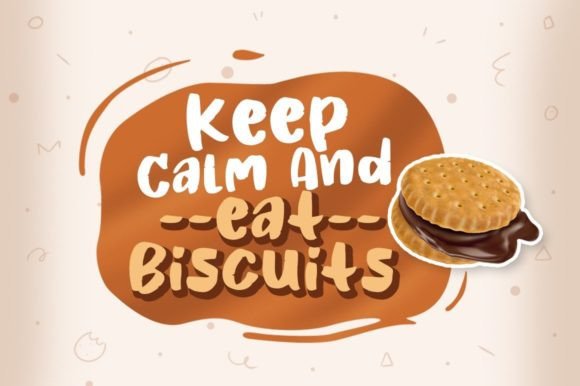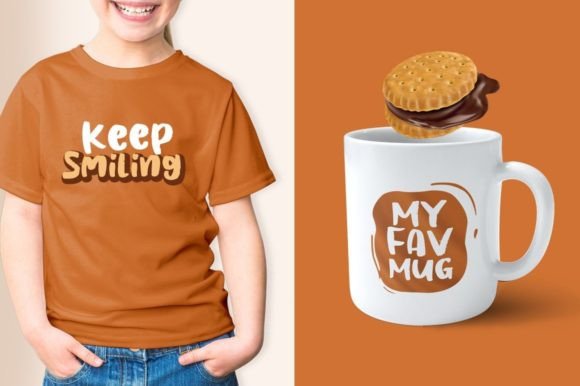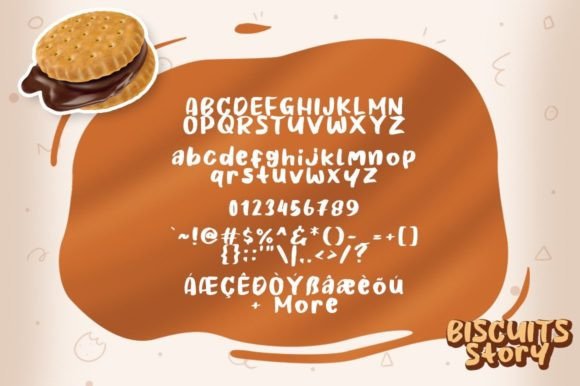
Biscuits Story Font: Adding a Playful Touch to Your Designs
Are you looking for a font that can add a playful and fun touch to your designs? Look no further than the Biscuits Story Font! This display font is perfect for designers and crafters who want to create cartoon-related designs, children’s games, or any other creation that requires a playful and cool vibe.
What is Biscuits Story Font?
Biscuits Story Font is a fun and cool display font that is designed to bring a playful touch to your designs. Its unique and quirky style makes it perfect for a variety of design projects, from children’s books to cartoon-related designs, and even craft projects.
Key Features of Biscuits Story Font
- Playful and Fun Style: Biscuits Story Font has a playful and fun style that is perfect for designs that require a lighthearted and humorous touch.
- Display Font: This font is designed as a display font, making it perfect for headlines, titles, and other design elements that require a bold and eye-catching font.
- Cartoon-Related Designs: The Biscuits Story Font is perfect for cartoon-related designs, including children’s books, cartoons, and comics.
- Children’s Games: This font is also great for children’s games, including puzzle books, activity sheets, and other fun and interactive designs.
Benefits of Using Biscuits Story Font
There are many benefits to using the Biscuits Story Font in your designs. Some of the benefits include:
- Unique and Quirky Style: The Biscuits Story Font has a unique and quirky style that will set your designs apart from others.
- Increased Engagement: The playful and fun style of this font can help increase engagement and make your designs more appealing to your audience.
- Perfect for Kids: The Biscuits Story Font is perfect for designs aimed at kids, including children’s books, games, and activities.
- Easy to Read: Despite its playful style, the Biscuits Story Font is easy to read, making it perfect for designs that require a bold and eye-catching font.
Design Ideas Using Biscuits Story Font
The Biscuits Story Font is a versatile font that can be used in a variety of design projects. Here are some design ideas to get you started:
- Children’s Books: The Biscuits Story Font is perfect for children’s books, including picture books, early readers, and chapter books.
- Cartoon-Related Designs: This font is great for cartoon-related designs, including character designs, posters, and merchandise.
- Children’s Games: The Biscuits Story Font is also great for children’s games, including puzzle books, activity sheets, and other fun and interactive designs.
- Craft Projects: This font can also be used in craft projects, including handmade cards, gift tags, and other paper crafts.
The Biscuits Story Font is a fun and cool display font that is perfect for designers and crafters who want to add a playful touch to their designs. With its unique and quirky style, this font is perfect for cartoon-related designs, children’s games, and craft projects. Whether you’re a professional designer or a hobbyist, the Biscuits Story Font is a great addition to your font collection.